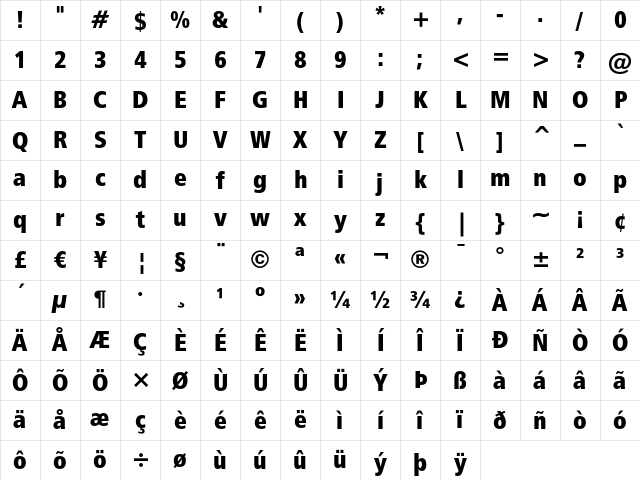
Humanist 777 Extra Black Condensed
Style: Extra Black Condensed
Humanist 777 Family
Humanist 777 Extra Black Condensed
Design Context for Humanist 777
Humanist 777 is a composed and adaptable typeface that performs quietly and consistently across a wide range of design contexts. Its narrow stance lets it pack a punch even in space-constrained designs.